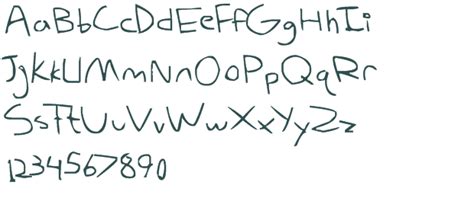
Messy Child Handwriting Font : My Messy Handwriting Font | dafont.com - Looking for handwriting messy fonts?. Kristen itc font is a great child's handwriting font! Added by tcollier (1 style). Our handwritten fonts are an opportunity to address personal and loving issues. I was supposed to add captions for. Actually, the least thing you think of when you want to communicate with your loved ones is a paper letter.
These teacher fonts help students learn both print and cursive writing. They are based on the handwriting of children between five and ten years of age, and include a special dingbat font composed entirely of children's. Ready to personalize and share in facebook and twitter. Dyslexie a font to help those who tend to reverse letters of just have a hard time telling letters apart for whatever reason. It appears with one dotted.
It appears with one dotted. Messy handwriting fonts (literary spring designs). Download free handwritten fonts for commercial and personal use. Actually, the least thing you think of when you want to communicate with your loved ones is a paper letter. Ashcan bb +1byblambot comic fonts. It is perfect for branding, wedding invites and cards, and maybe. Since this font has been so popular and i've offered it for free personal and commercial use, i wanted to give my fans the option to donate money towards my. Cursive · script · feminine · masculine · formal · informal · messy · neat · scribbled · brushed · graffiti · … children, handwriting fonts.
Learning to write letters and put them in the right spot to make words and sentences is hard. Teaching handwriting to children is still an important task and we just can't find any google fonts that we can use in google docs to help children learn to if you're scratching your head to what i mean i've a couple of links to educational software providers in the uk that provide such fonts on windows. Instagram fonts or fonts for instagram are increasingly popular. Download these free handwriting fonts, including free cursive fonts. The kadisoka handwriting sans serif font is a beautiful handcrafted condensed typeface that's ideal for a wide range of purposes, especially book covers and stationery such as invitations and flyers. An instagram font or an ig font will make your ig images stand out. Download free handwritten fonts for commercial and personal use. Learn more about what causes messy or illegible writing, and how to help. Angelinas script font is modern & luxury signature font with perfect flow and natural handwriting. This is a messy handwriting font as i believe that this would be a useful font for people to use as many people's handwriting look similar to this and this would be good. Check out our kid handwriting font selection for the very best in unique or custom, handmade pieces from our digital shops. Browse a unique collection of the best handwritten fonts and thousands of free typefaces to download. In the age of social media and smartphones, probably, there are people, who have never heard about handwritten letters.
Dyslexie a font to help those who tend to reverse letters of just have a hard time telling letters apart for whatever reason. Browse a unique collection of the best handwritten fonts and thousands of free typefaces to download. Check out our kid handwriting font selection for the very best in unique or custom, handmade pieces from our digital shops. Download these free handwriting fonts, including free cursive fonts. Cursive · script · feminine · masculine · formal · informal · messy · neat · scribbled · brushed · graffiti · … children, handwriting fonts.
The child's handwriting font contains 236 beautifully designed characters. Looking for handwriting messy fonts? Actually, the least thing you think of when you want to communicate with your loved ones is a paper letter. In the age of social media and smartphones, probably, there are people, who have never heard about handwritten letters. Download the best free handwritten fonts, that are hand picked collections by our editorial experts and can be used on mac, pc, website. The kadisoka handwriting sans serif font is a beautiful handcrafted condensed typeface that's ideal for a wide range of purposes, especially book covers and stationery such as invitations and flyers. Instagram fonts or fonts for instagram are increasingly popular. Though not designed for handwriting, you could print out worksheets in this font to help out a dyslexic child.
Why does your child have messy handwriting? Actually, the least thing you think of when you want to communicate with your loved ones is a paper letter. Our handwritten fonts are an opportunity to address personal and loving issues. Every font is free to download! Ff child's play is a collection of unique typefaces frozen in time! Browse a unique collection of the best handwritten fonts and thousands of free typefaces to download. It appears with one dotted. Download 10,000 fonts with one click for $19.95. Cursive · script · feminine · masculine · formal · informal · messy · neat · scribbled · brushed · graffiti · … children, handwriting fonts. In the age of social media and smartphones, probably, there are people, who have never heard about handwritten letters. Licensed for personal and commercial use. The kadisoka handwriting sans serif font is a beautiful handcrafted condensed typeface that's ideal for a wide range of purposes, especially book covers and stationery such as invitations and flyers. Angelinas script font is modern & luxury signature font with perfect flow and natural handwriting.
Ready to personalize and share in facebook and twitter. Dyslexie a font to help those who tend to reverse letters of just have a hard time telling letters apart for whatever reason. Download the best free handwritten fonts, that are hand picked collections by our editorial experts and can be used on mac, pc, website. Learning to write letters and put them in the right spot to make words and sentences is hard. Most people expect young kids to have messy handwriting.
list of cute handwriting fonts | Kids handwriting font ... from i.pinimg.com
Uploading this video one minute late oops anyway today im showing you how i made my handwriting into a font. Browse and download handwriting fonts and generate images from custom text with handwriting fonts. Just want to post a quick update. I was supposed to add captions for. ✔️ customize your own preview on ffonts.net to make sure it`s the right one for your designs. Ready to personalize and share in facebook and twitter. Download 10,000 fonts with one click for $19.95. This is a messy handwriting font as i believe that this would be a useful font for people to use as many people's handwriting look similar to this and this would be good.
It appears with one dotted.
An instagram font or an ig font will make your ig images stand out. I was supposed to add captions for. It appears with one dotted. Kristen itc font is a great child's handwriting font! Learn more about what causes messy or illegible writing, and how to help. The penmanship print upright manuscript font is an excellent choice for teaching young children their block letter shapes. Atakana handwriting font script by afkari studio kanatype.com. Download 10,000 fonts with one click for $19.95. Though not designed for handwriting, you could print out worksheets in this font to help out a dyslexic child. Added by tcollier (1 style). Why does your child have messy handwriting? Instagram fonts or fonts for instagram are increasingly popular. They are based on the handwriting of children between five and ten years of age, and include a special dingbat font composed entirely of children's.